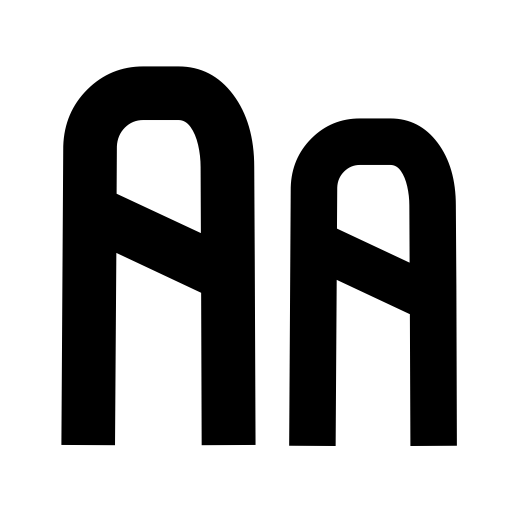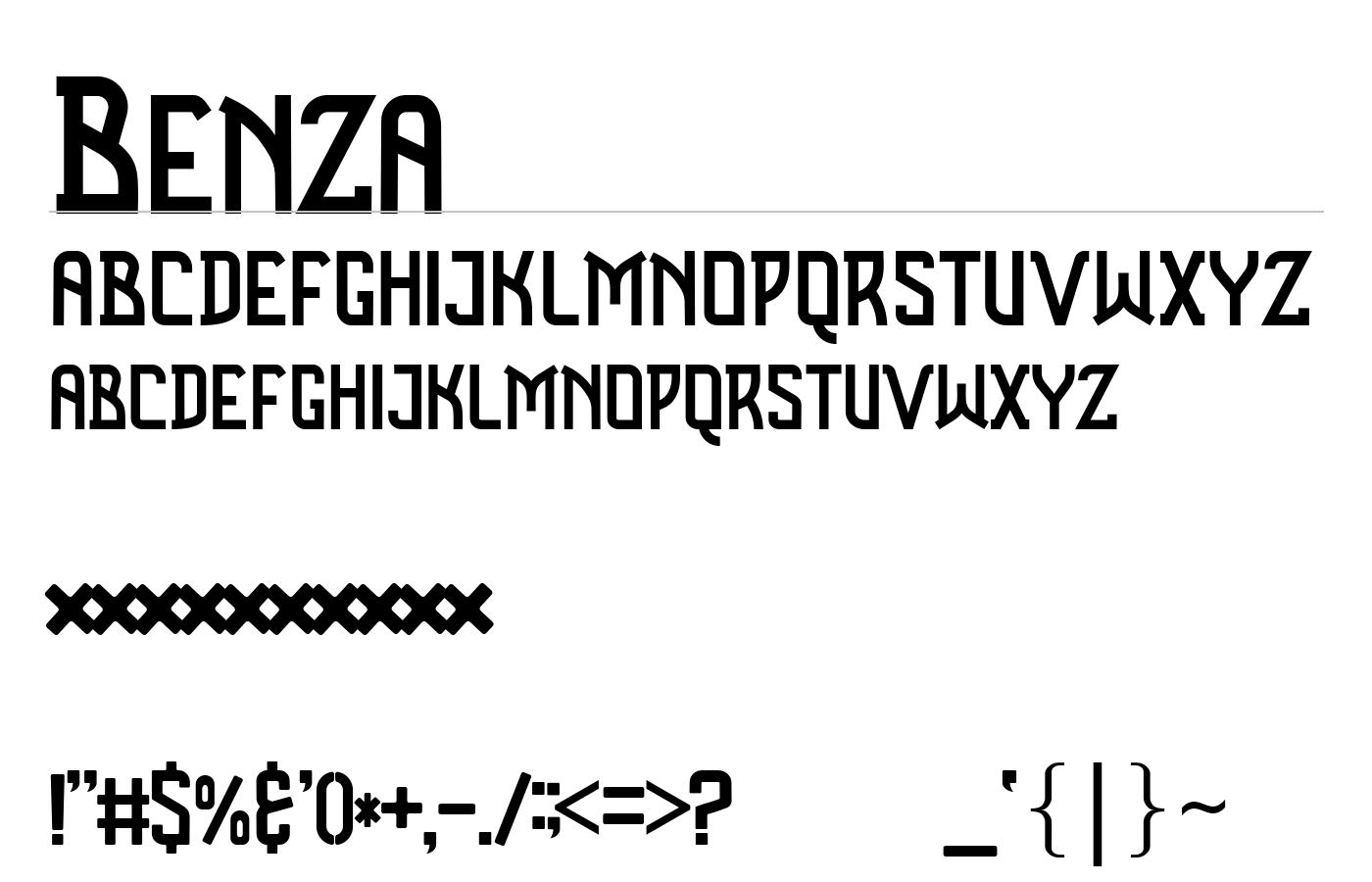
Benza is a bold, condensed sans serif font with a distinctive geometric and slightly angular design, characterized by sharp corners and strong vertical strokes. Its unique letterforms, such as the stylized Q and R, lend it a modern, edgy personality suited for branding, headlines, and display use where a striking and contemporary look is desired. This font works particularly well for creative projects seeking a clean yet unconventional style that stands out.
Benza Font
About Benza Font